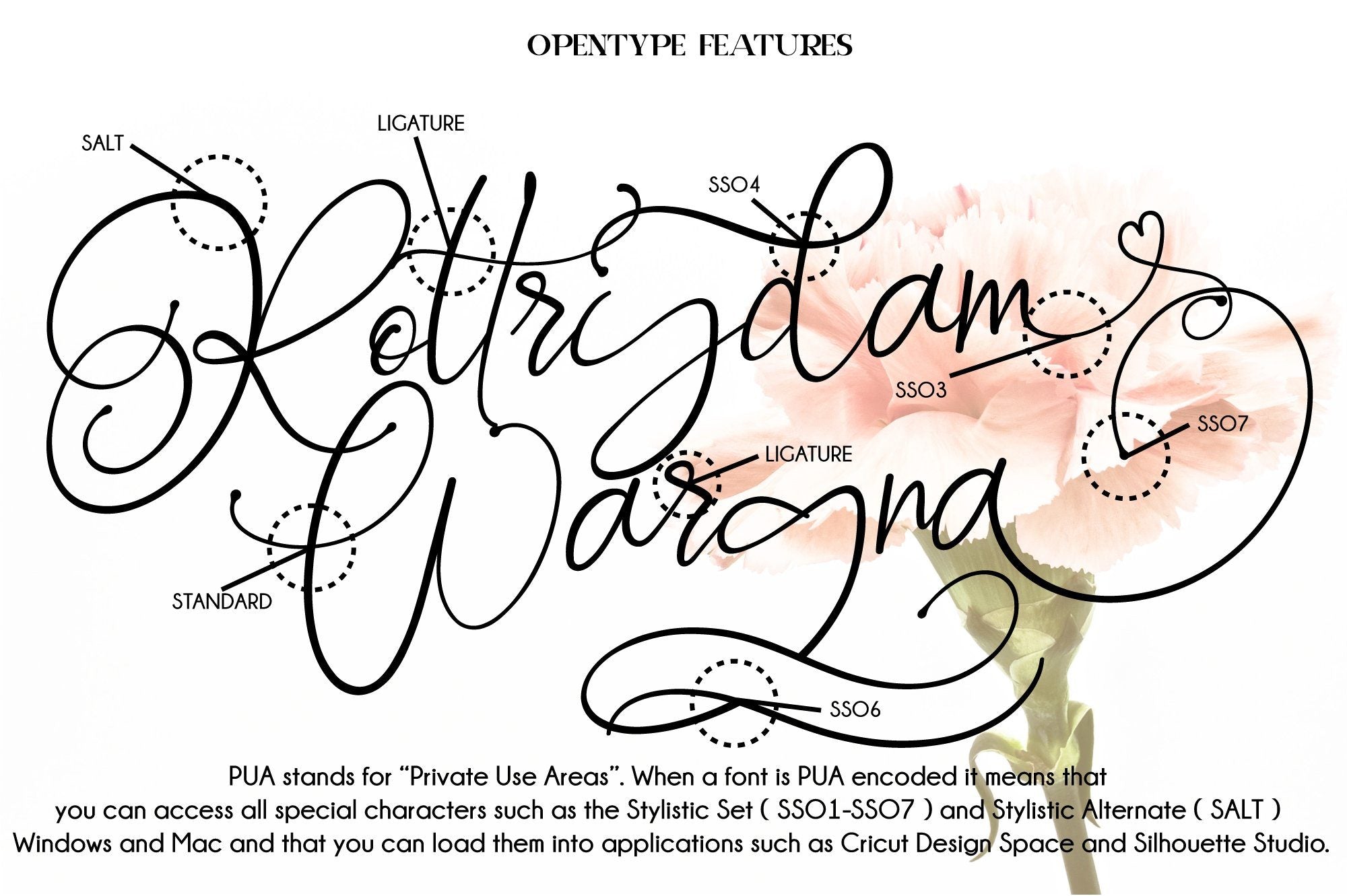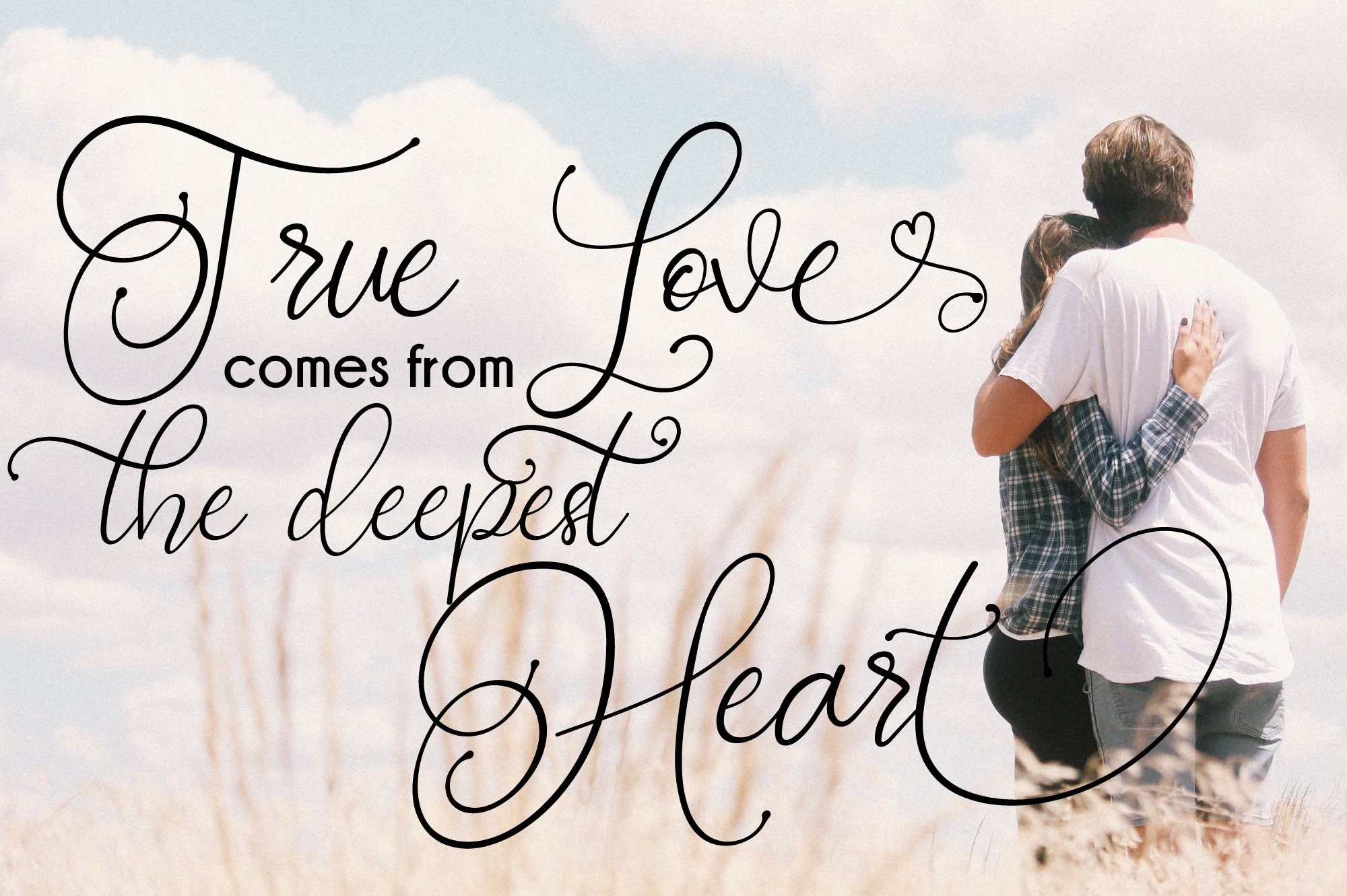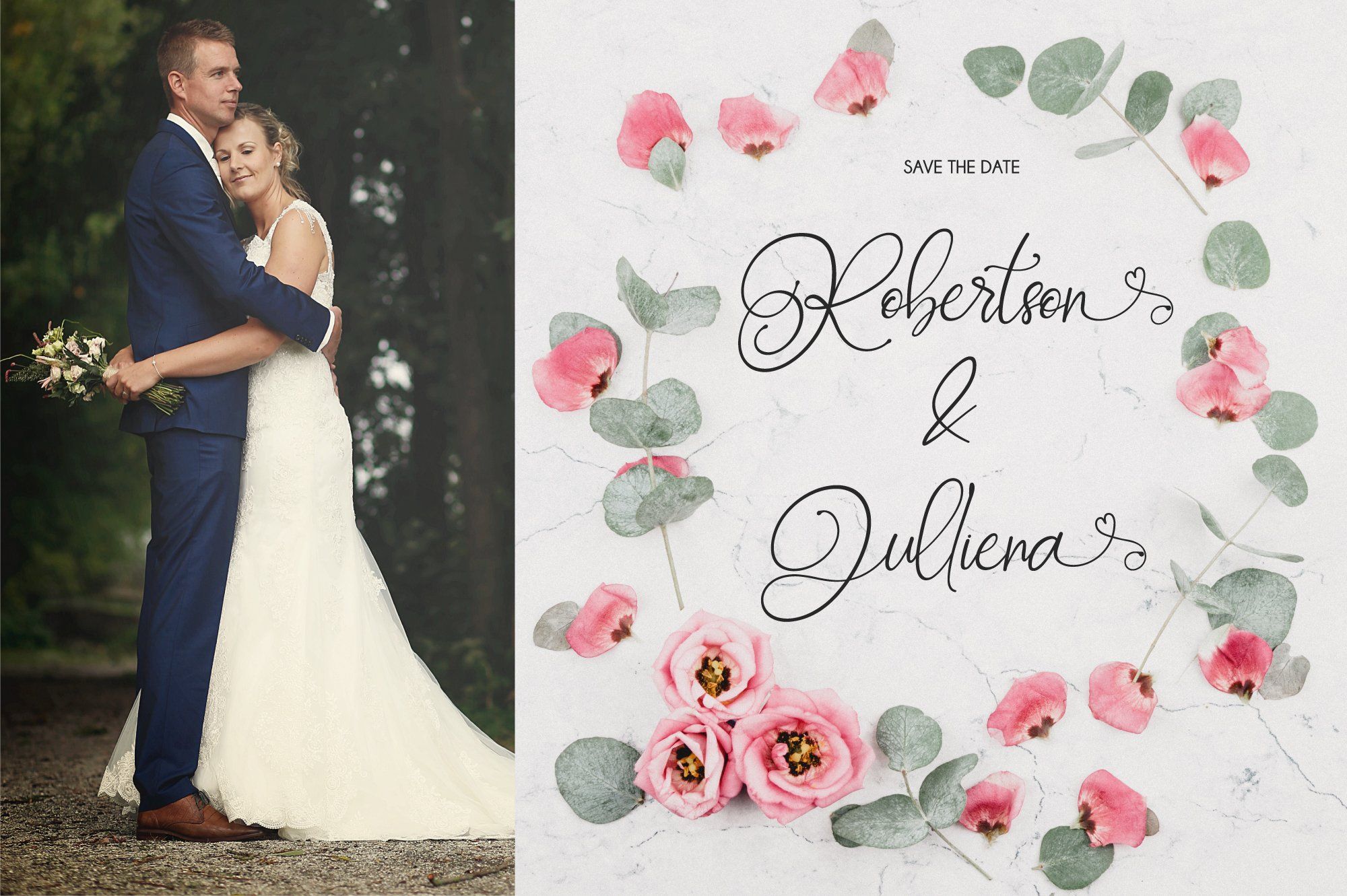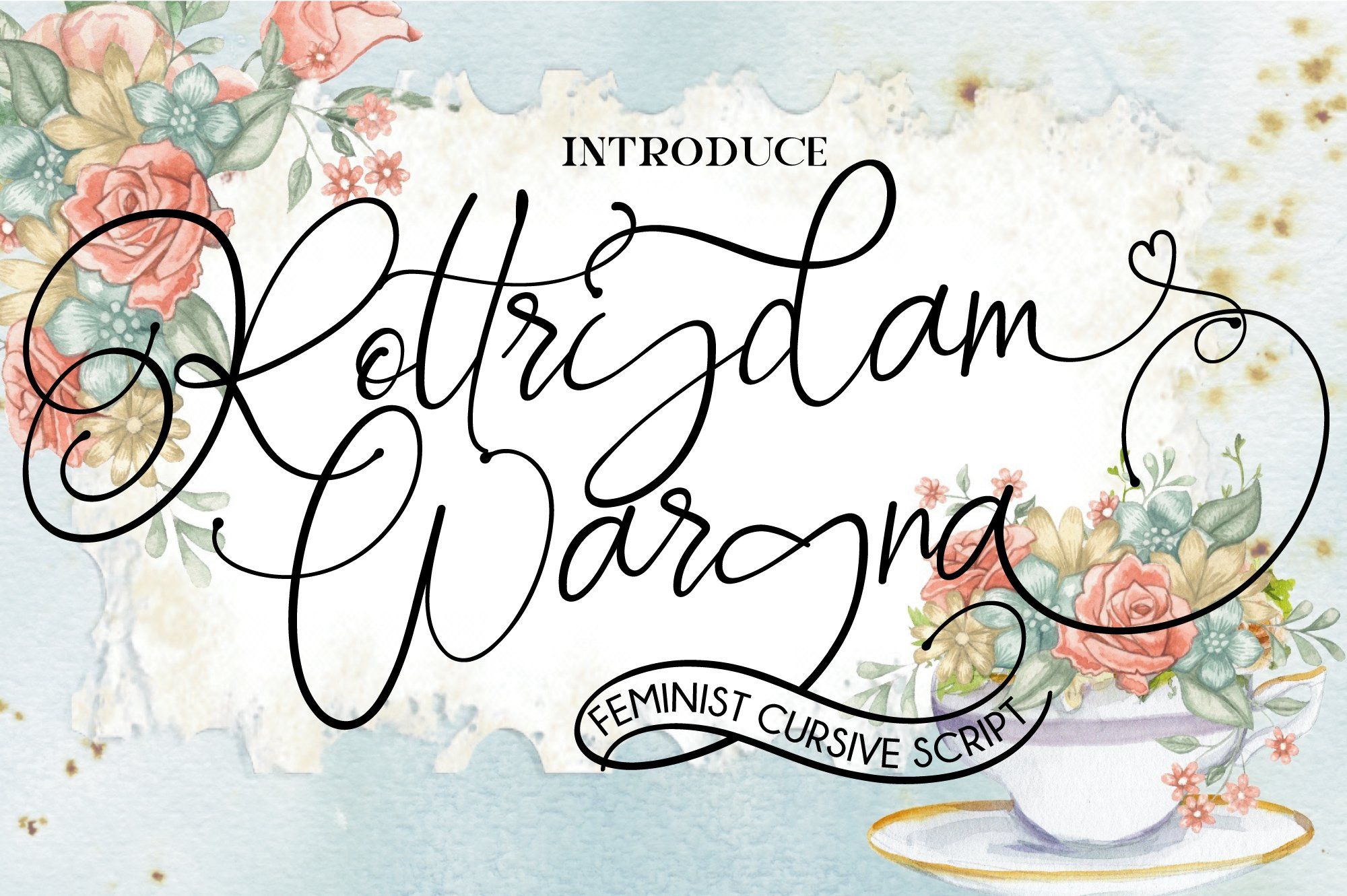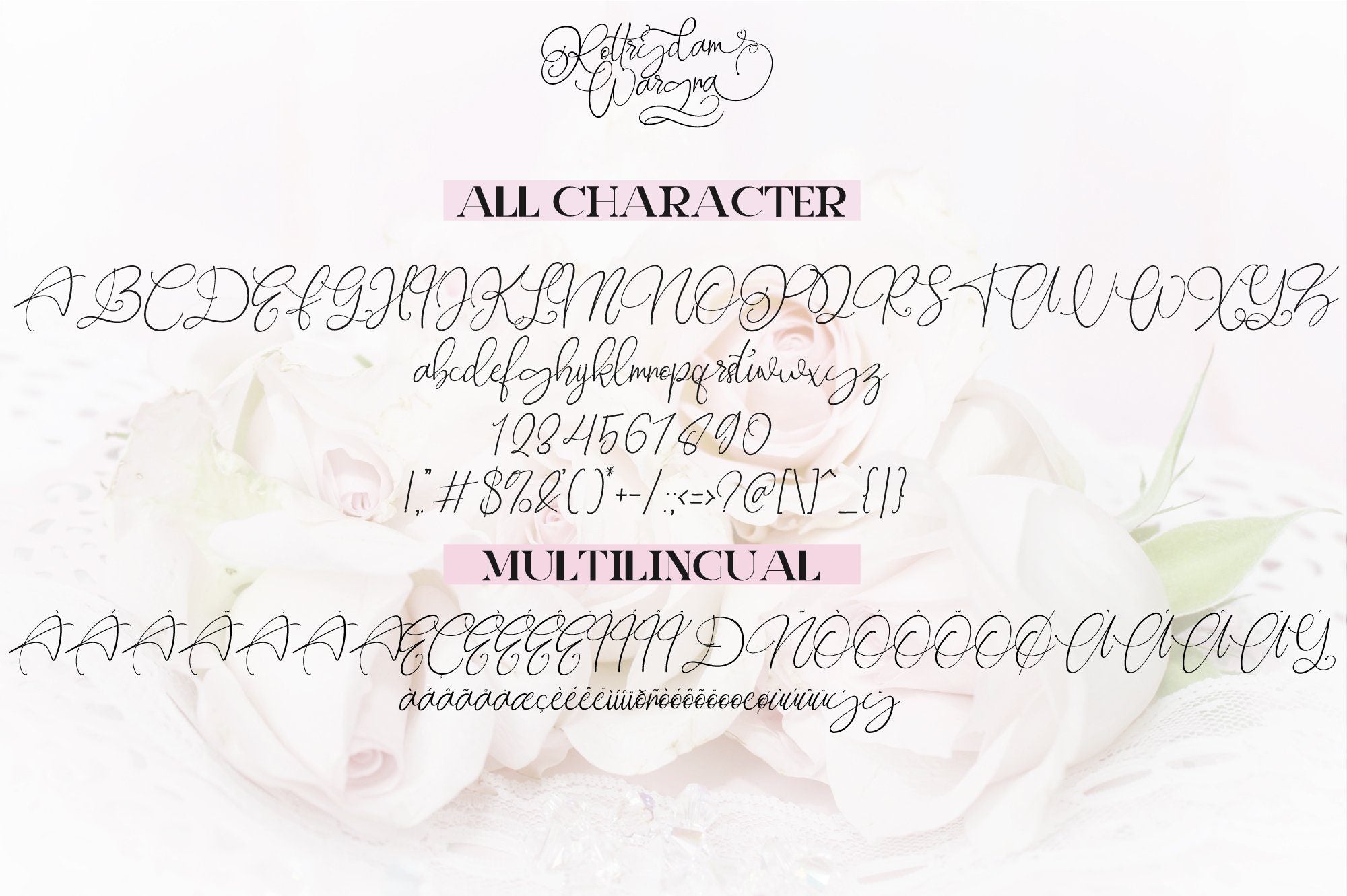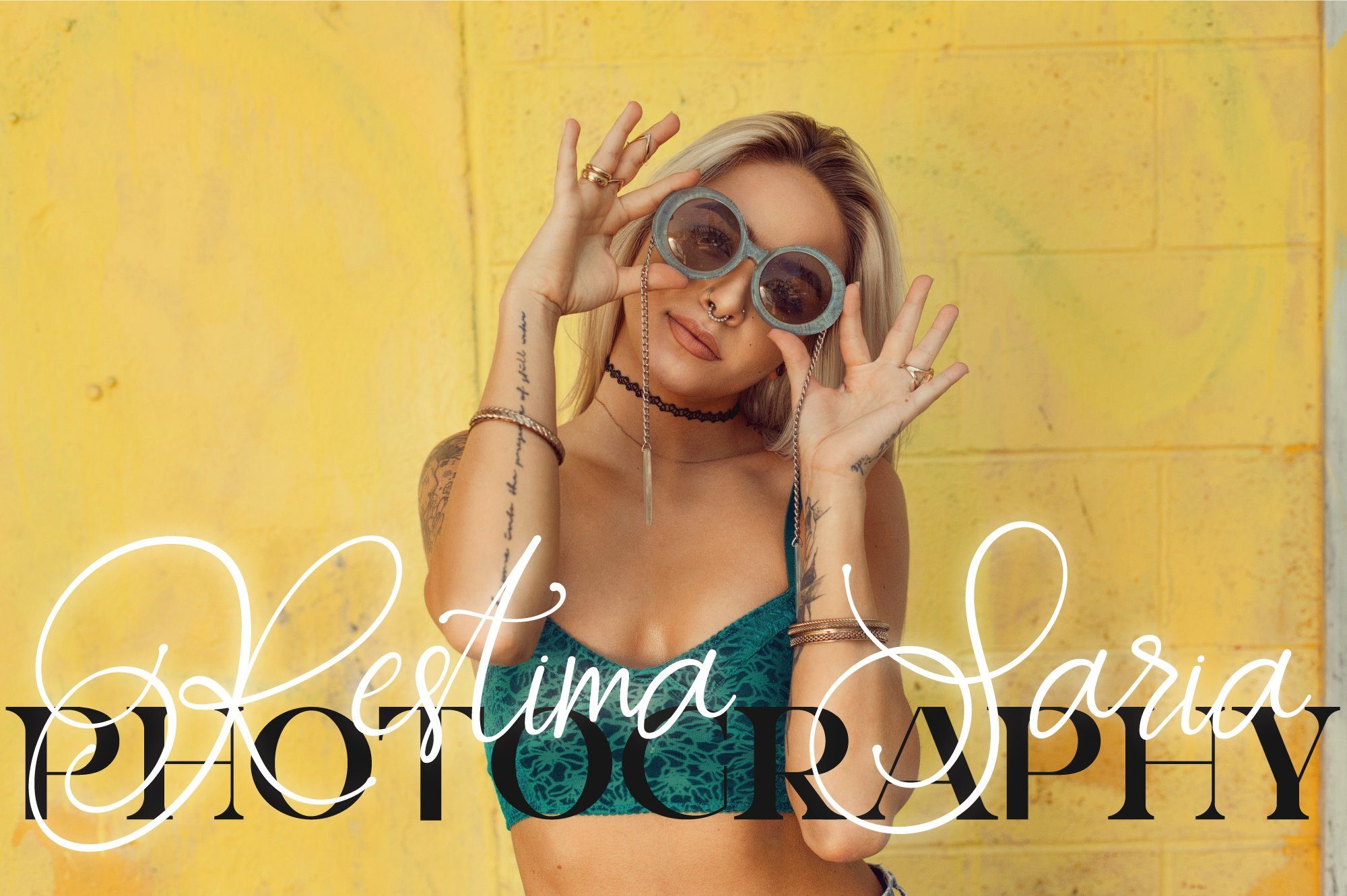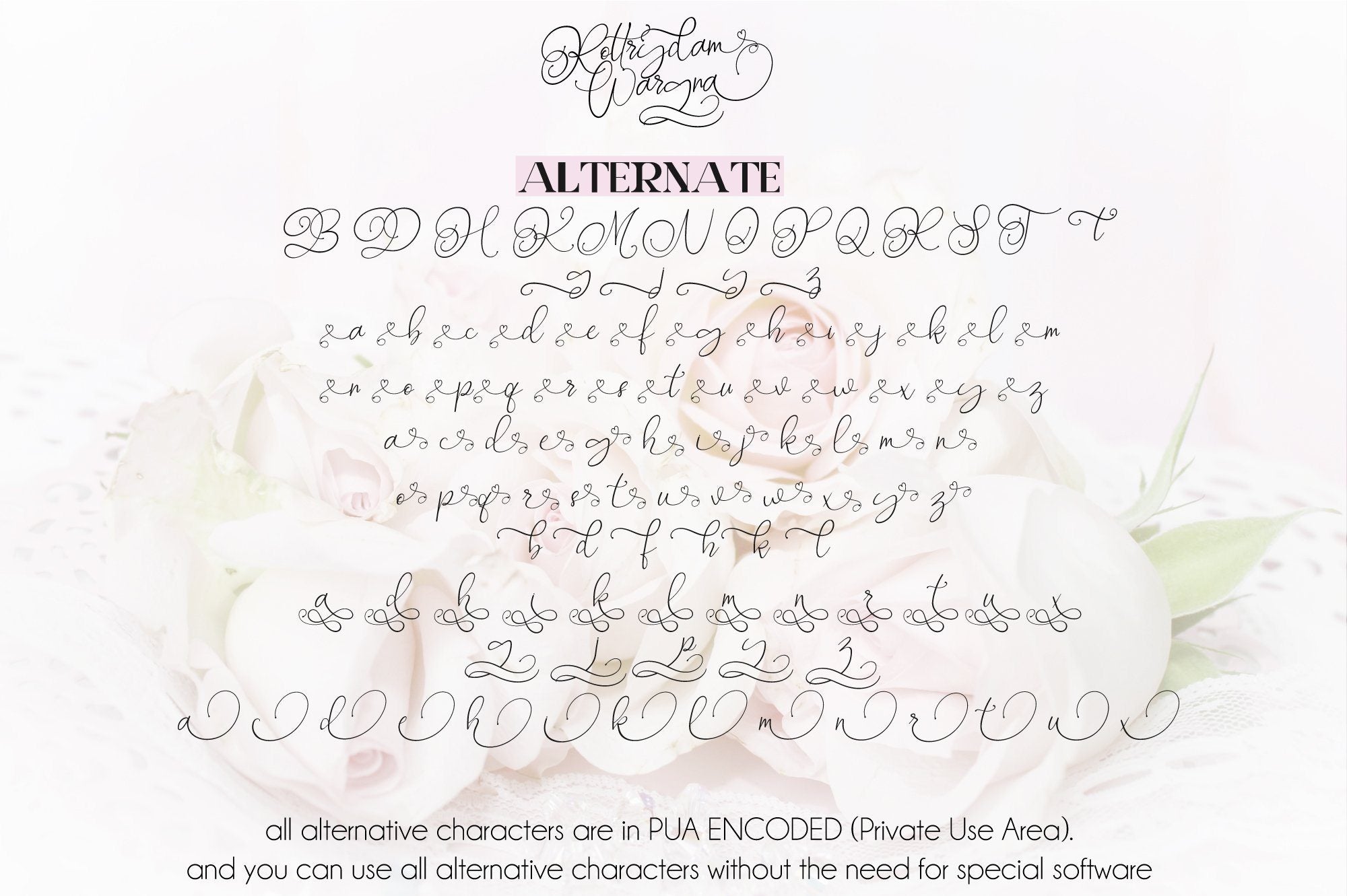
Rottrydam Wargna
About Rottrydam Wargna
HURRY UP LIMITED DISCOUNT FOR 500 FIRST BUYER , IF NOT REACH DISCOUNT WILL BE ADDING TIME. Rottrydam Wargna a new fresh & modern script with a handmade calligraphy style, decorative characters . in this font script there are many alternative choices of characters from Swash Lowercase, SS01 to SS07. So beautiful on invitation like greeting cards, branding materials, business cards, quotes, posters, and more!! The Open Type features can be accessed by using Open Type savvy programs such as Adobe Illustrator, Adobe InDesign, Adobe Photoshop Corel Draw X version, And Microsoft Word. And this Font has given PUA unicode (specially coded fonts). so that all the alternate characters can easily be accessed in full by a craftsman or designer. Features : PUA Encoded 100% Acessibility Stylistic Alternates Standard Ligatures SS01-SS07 If you don’t have a program that supports OpenType features such as Adobe Illustrator and CorelDraw X Versions, you can access all the alternate glyphs using Font Book (Mac) or Character Map (Windows). To Access Alternate Characters Click The Link Below: How to access alternates in Adobe illustrator CS https://www.youtube.com/watch?v=geL0Ye02Ryk How to access alternates in Adobe illustrator CC https://www.youtube.com/watch?v=V25yiUh8BcE How to access alternates in Ms Wordhttps:// www.youtube.com/watch?v=HxkhZiCuwEw How to access alternates in Coreldraw X7 https://www.youtube.com/watch?v=UBVsufJjons How to access alternates in Indesign CS https://www.youtube.com/watch?v=HgZTCxKG14Q How to access alternates in Adobe Photoshop CC https://www.youtube.com/watch?v=BYKXl58AdNY If you have any question, don’t hesitate to contact me by email  Thanks and happy designing ? Thank You for purchase!